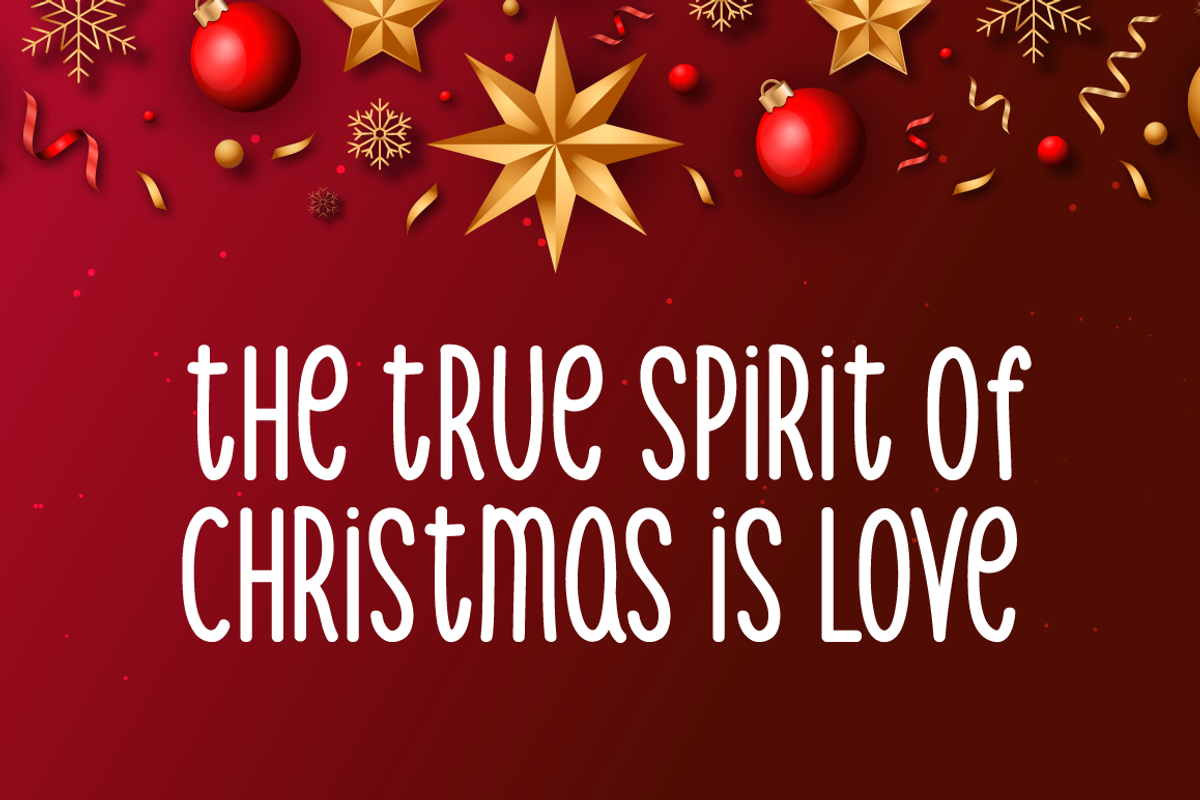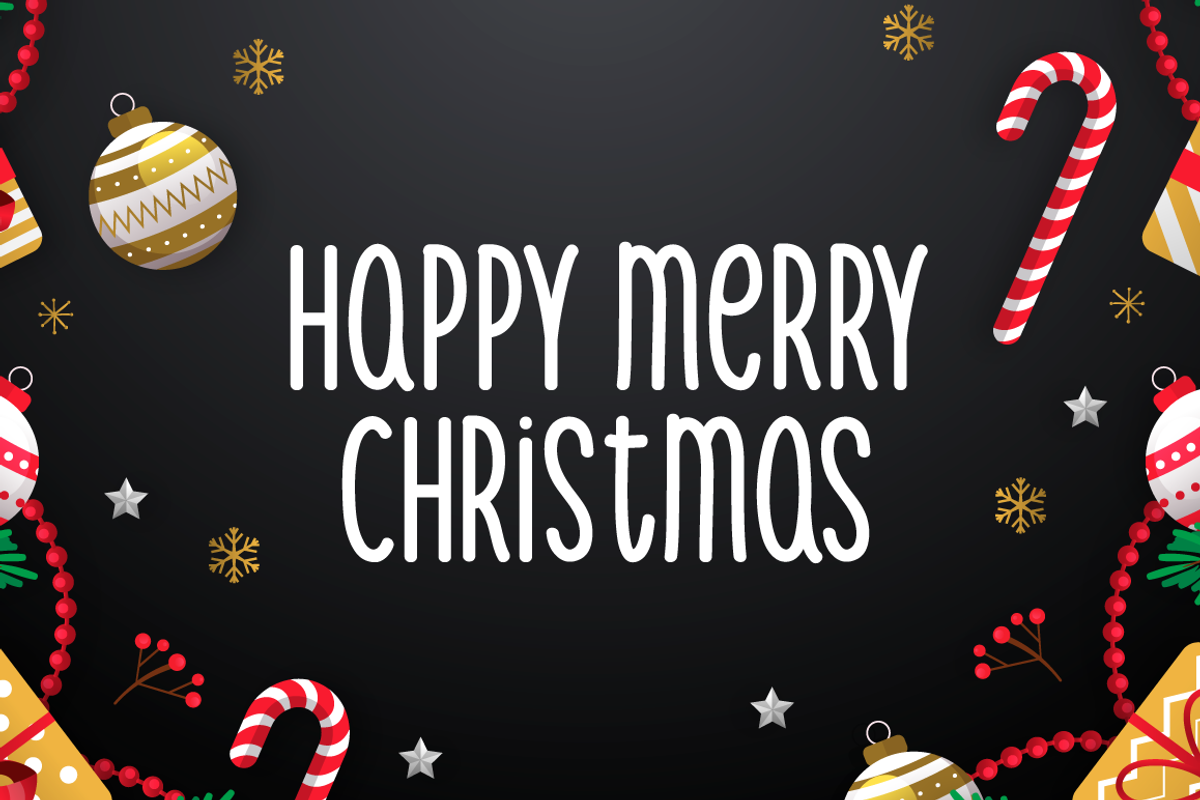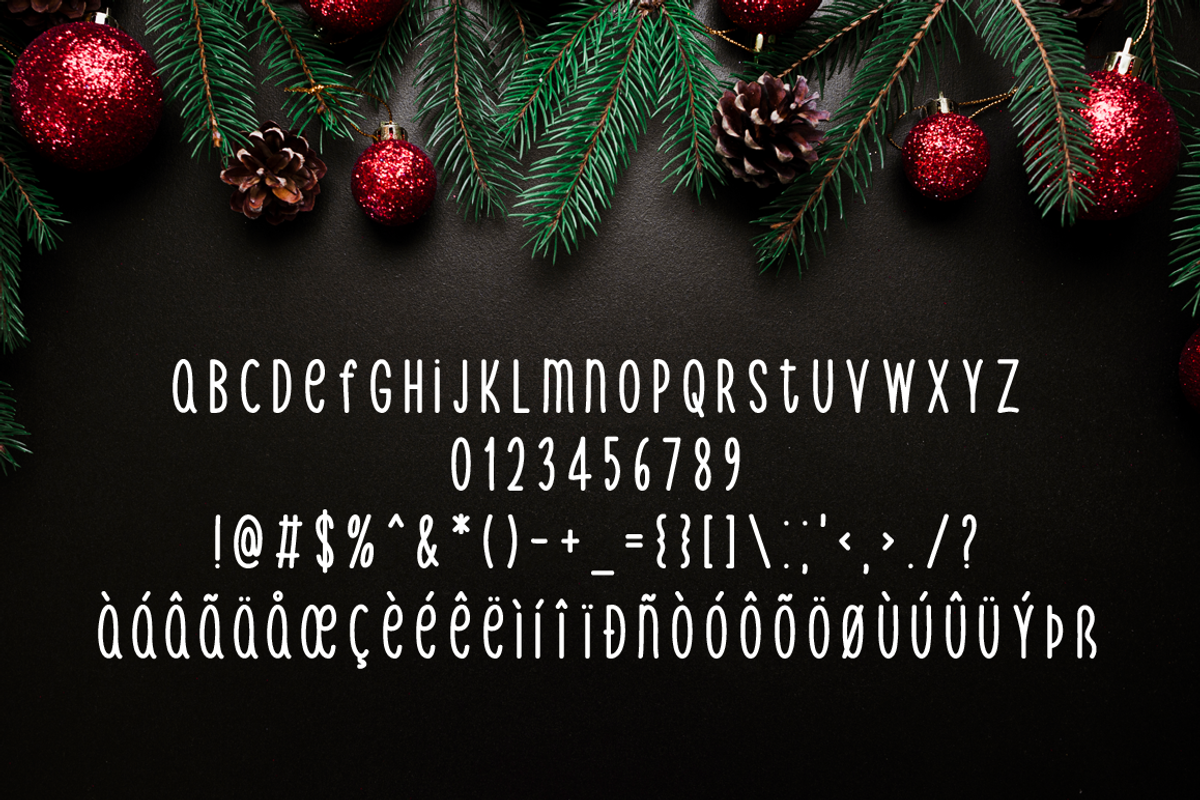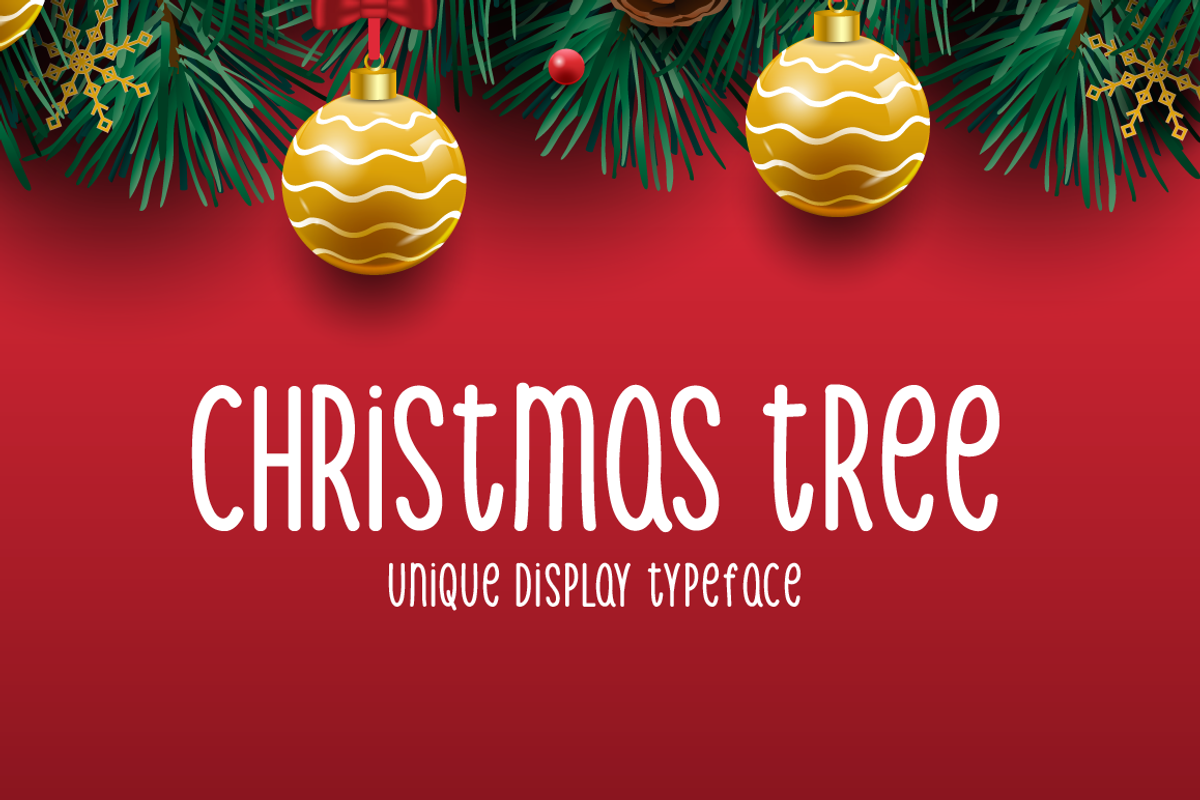
Christmas Tree Typeface
Introducing Christmas Tree!
Christmas Tree is a brand new display font. Christmas Tree is perfectly suited for stationery, logos, t-shirt, paper, print design, website header, photo frame, flyer, music cover, poster, image slider, and much more.
Includes a range of multilingual support